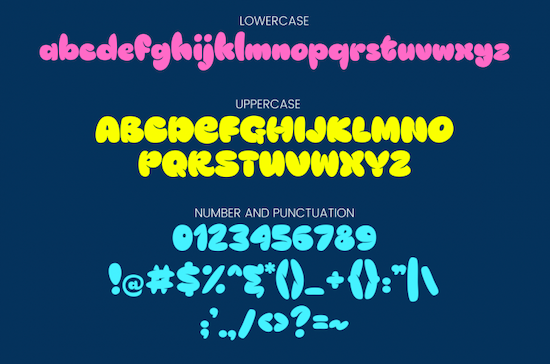
Blob And Happy Font
Just like this font name, Blob and Happy characterized the smile. It will draw children’s attention in no time, for this fun font has a unique chubby shape.
This is a playful & cute font, it will make your every design looks fun, unique, and modern. This fun typeface is very perfect for kids photography, window art, websites, greeting cards, DIY projects, packaging, photos, tags scrapbooking, posters, labels, signs, branding, quotes, and much more.